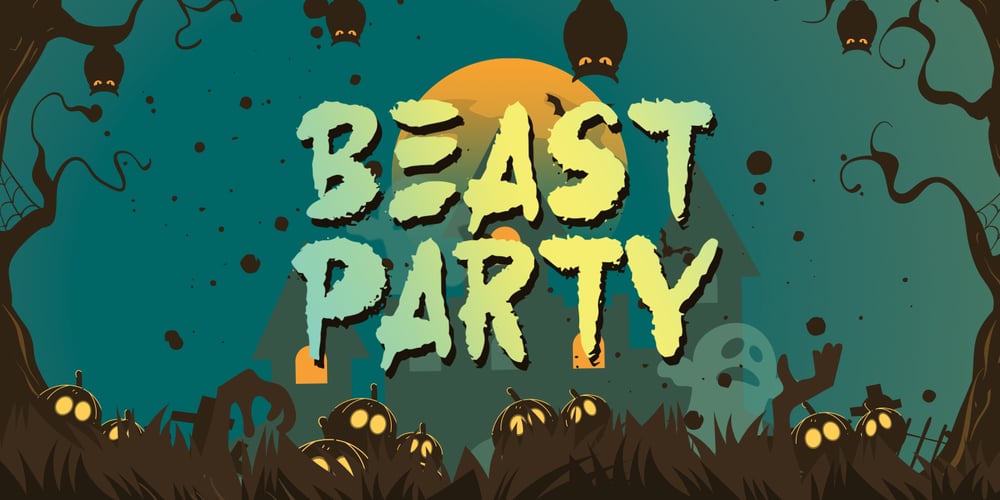
Beast Party
Beast Party font
Beast Party Font Family was designed by Hendry Juanda and published by Letterhend. Beast Party contains 1 styles and family package options. Beast Party is a font which is can be used in fun spookish concept, and looks great in Halloween theme. This type of font perfectly made to be applied especially in movies or children which is need a standout font, and the other various playful forms such as invitations, labels, logos, magazines, books, greeting / wedding cards, packaging, fashion, make up, stationery, novels, labels or any type of advertising purpose.Features :numbers and punctuationmultilingualalternatesPUA encodedWe highly recommend using a program that supports OpenType features and Glyphs panels like many of Adobe apps and Corel Draw, so you can see and access all Glyph variations. How to access opentype feature : letterhend.com/tutorials/using-opentype-feature-in-any-software/